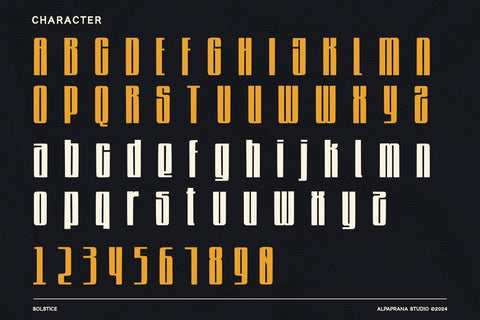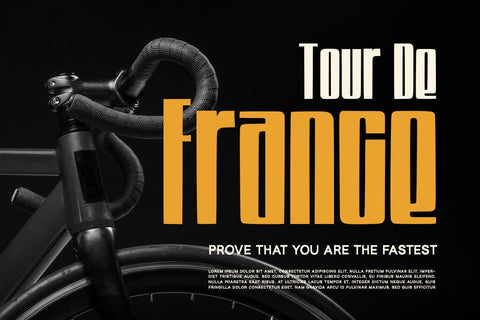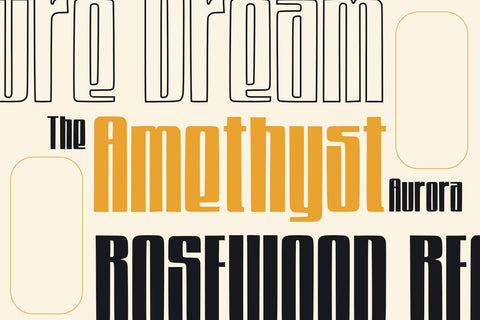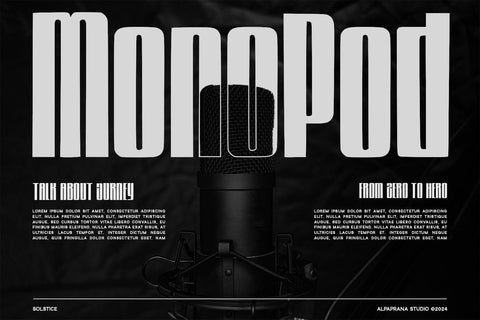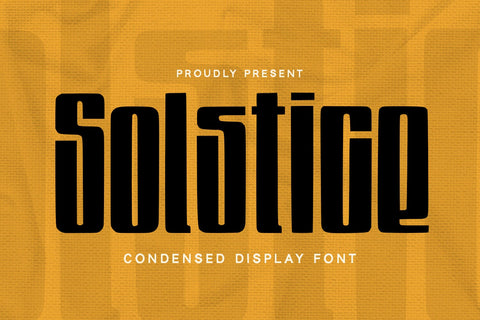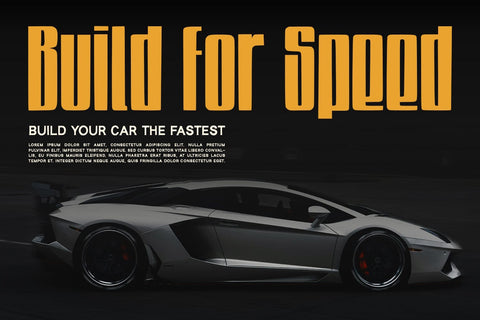
Solstice - Display Font
Solstice is a condensed display font with authentic and modern feels. It will be perfectly used for Branding, Logo Design, Lettering, Logotype, Clothing, Poster, magazine, packaging, posters, shopping bags, t-shirts, book covers, photography, special events and other design project.